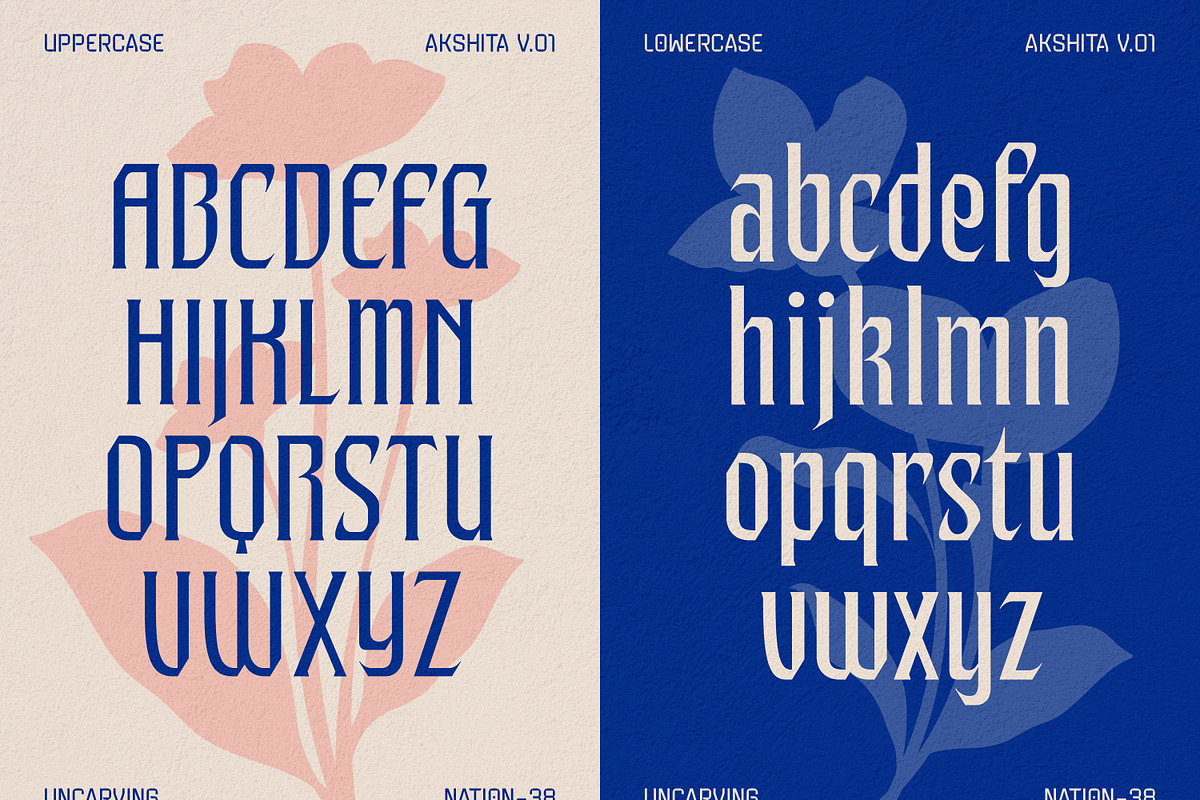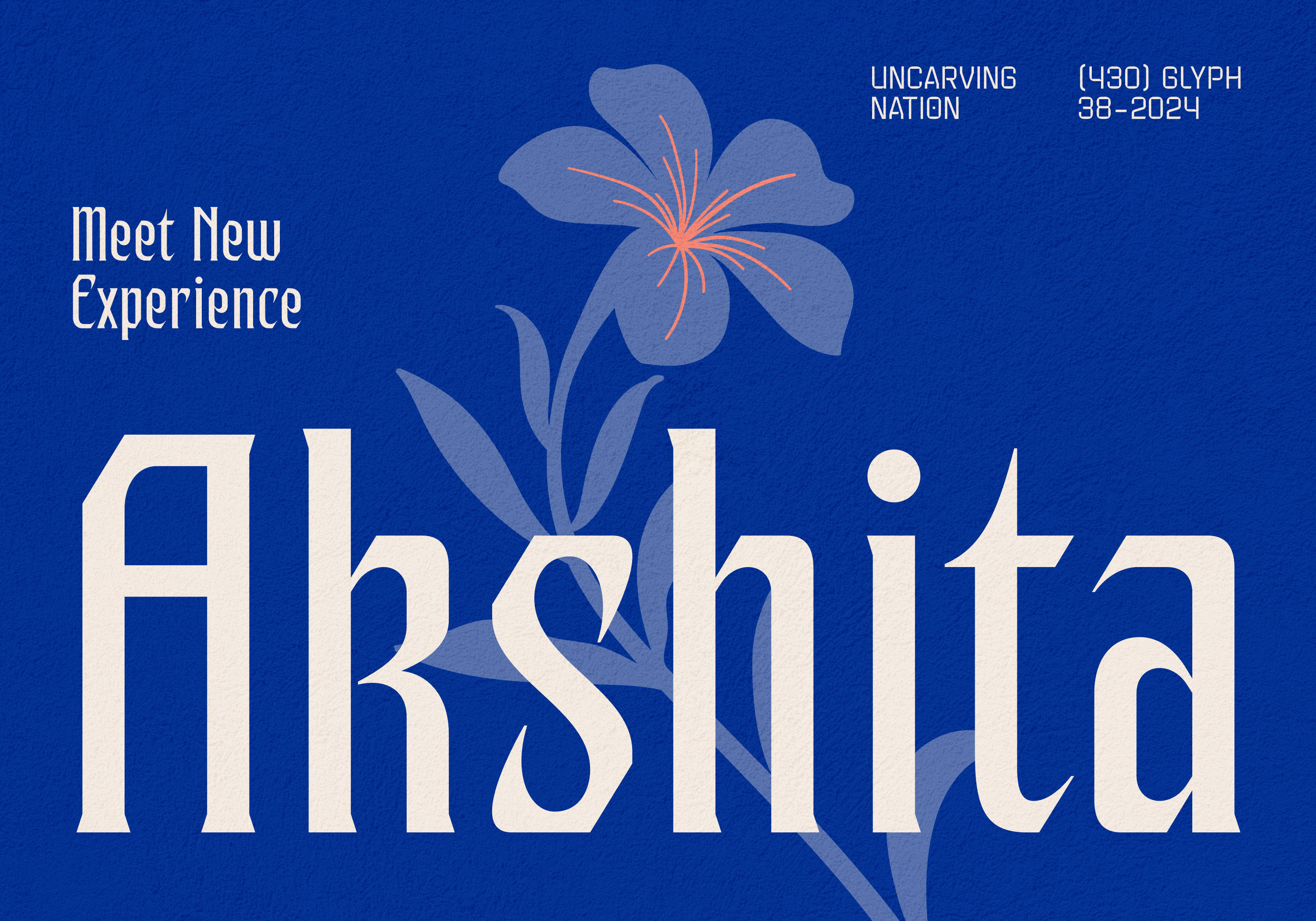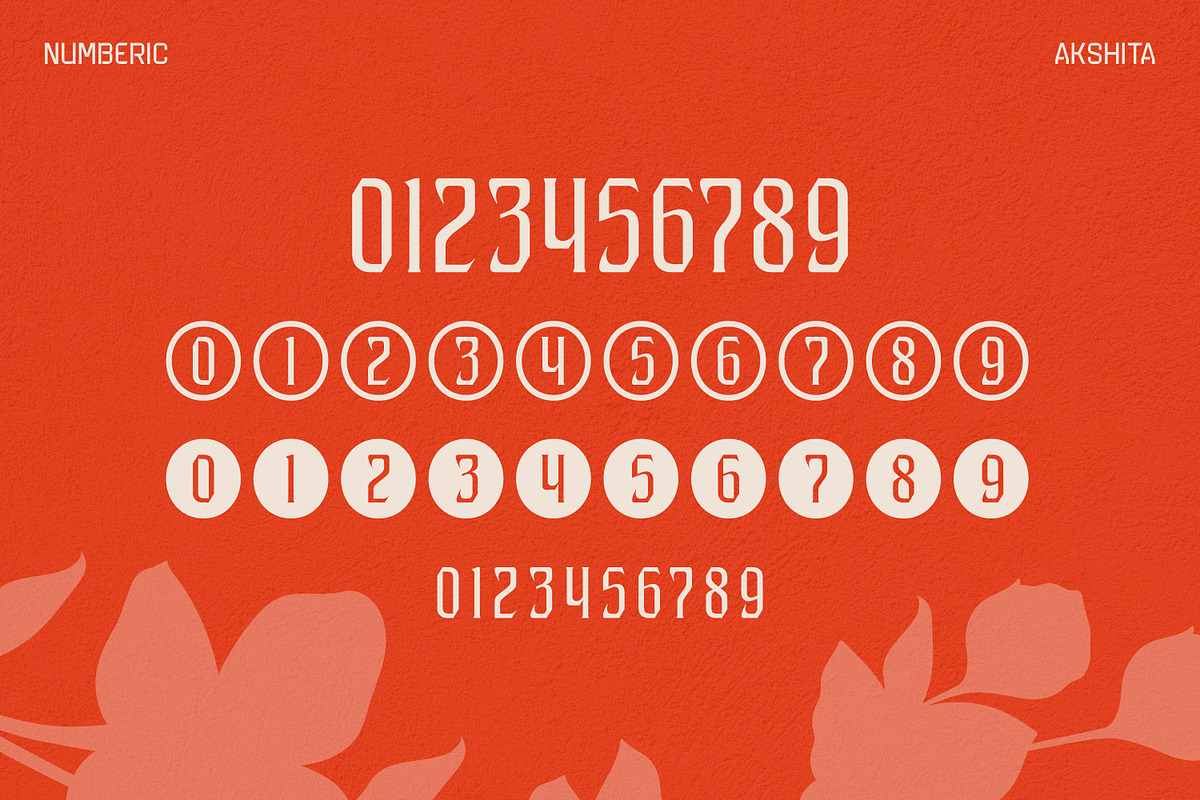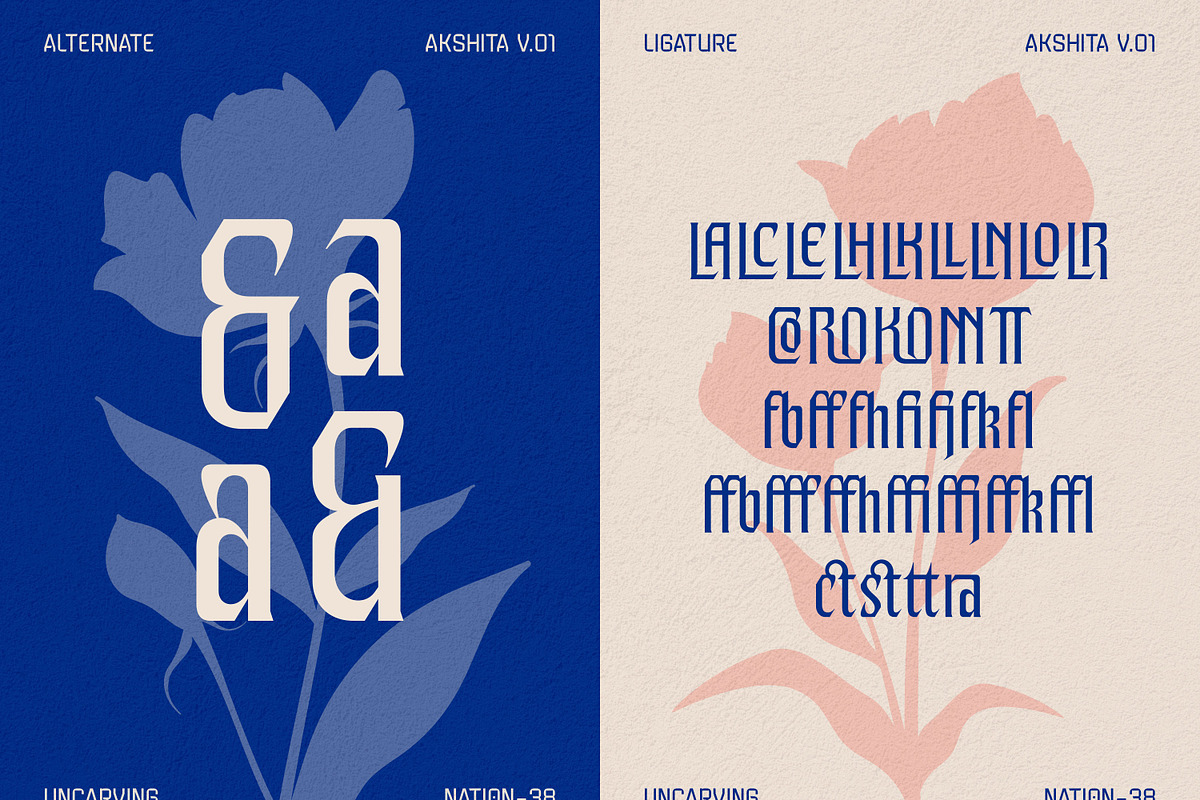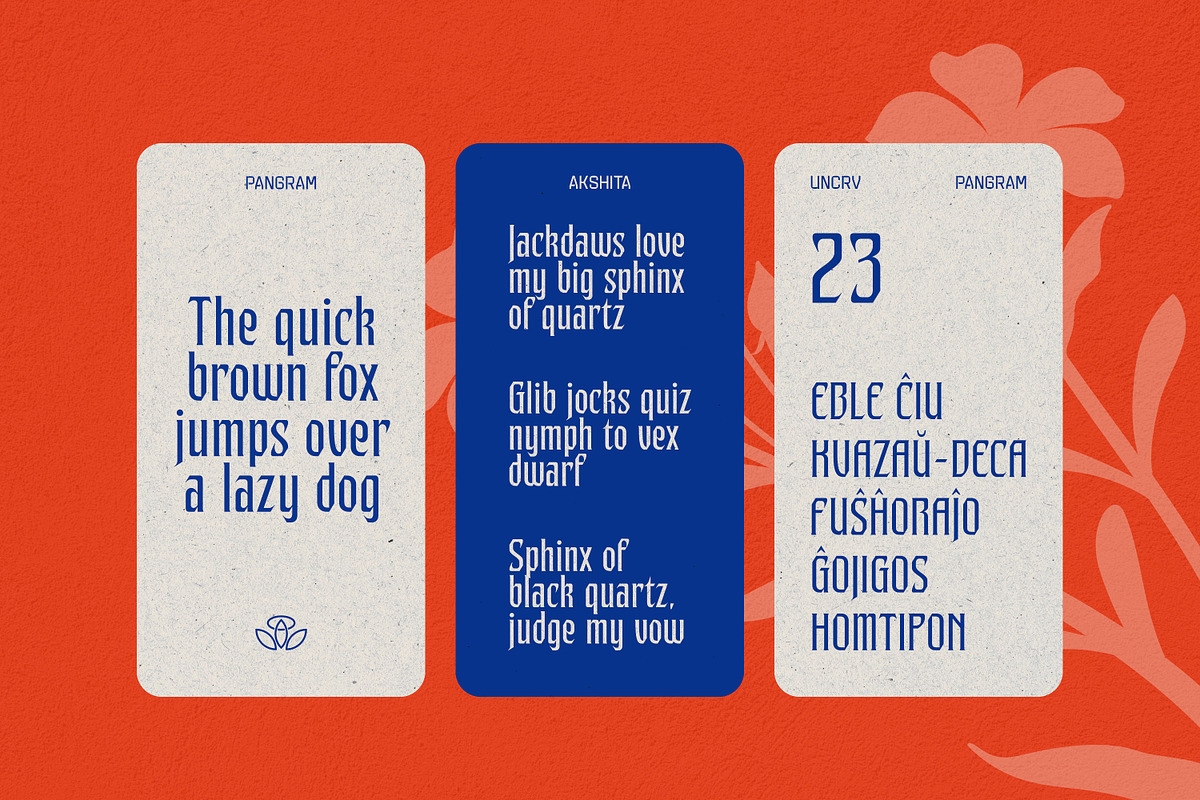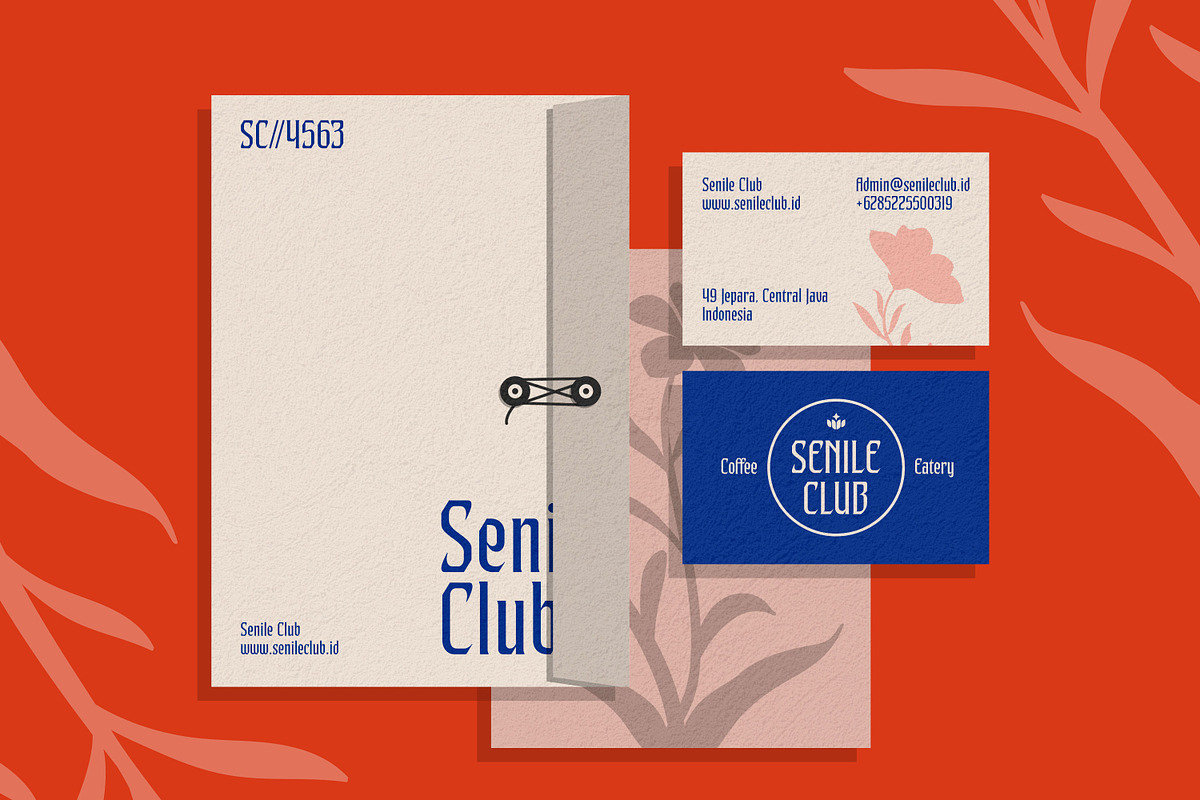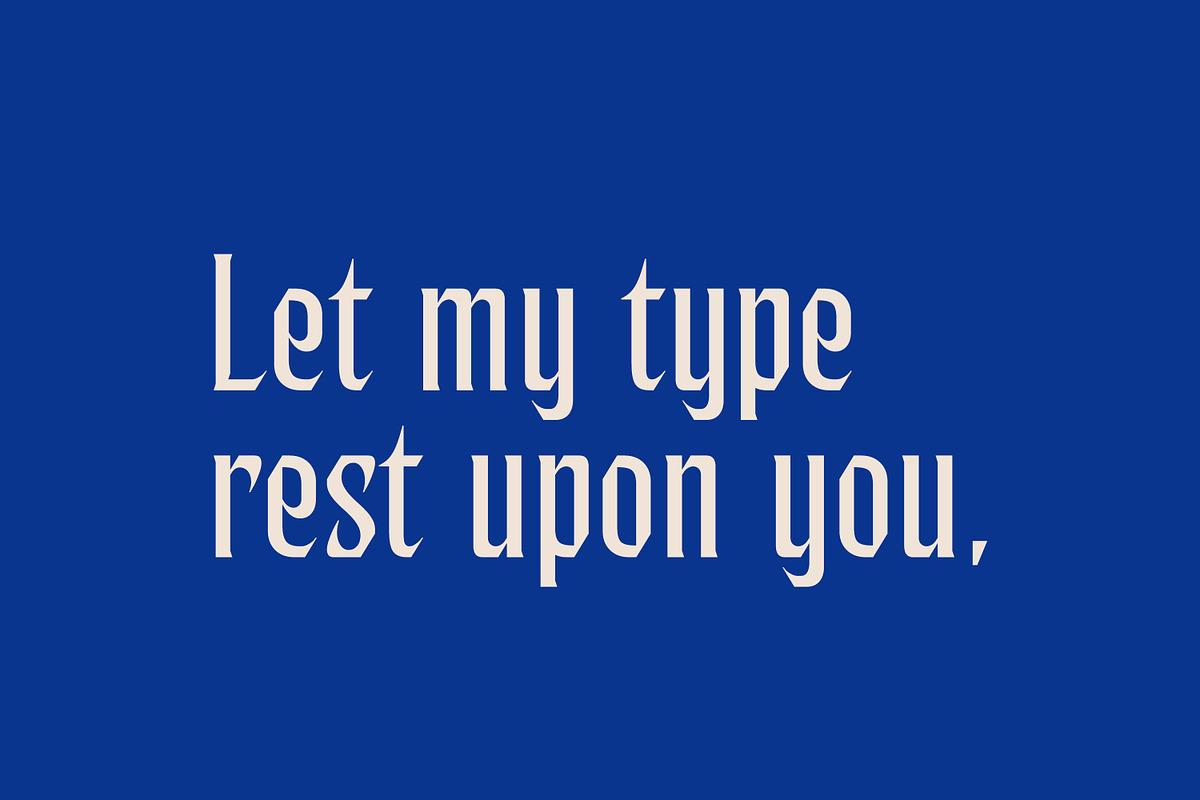
Akshita - Display Font
Akshita is a unique display font that seamlessly blends the classic elegance of Garalde fonts. By reinterpreting the artistic and visual richness of these styles towards a more modern and contemporary approach, the result is a timeless font with character and versatility. Akshita stands out best in larger sizes, making a bold impact in headings and titles, yet remains versatile enough for various design contexts.